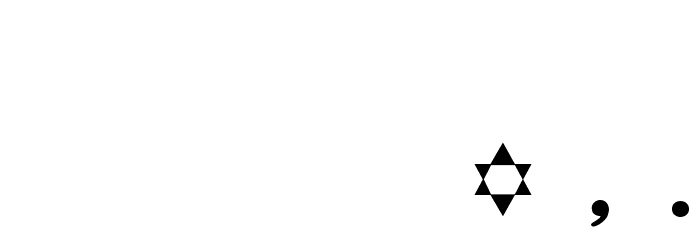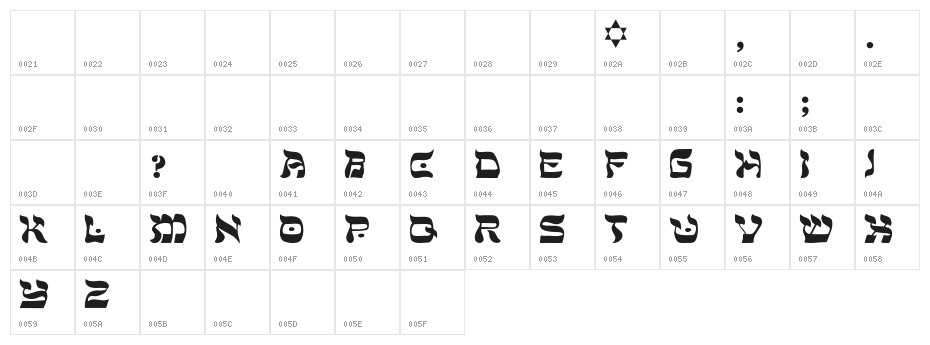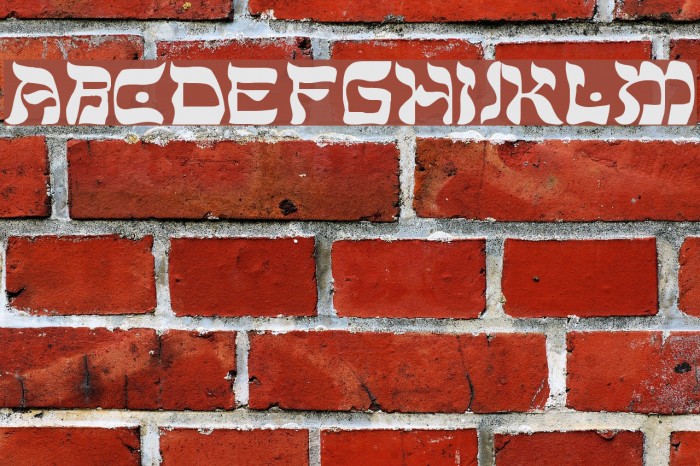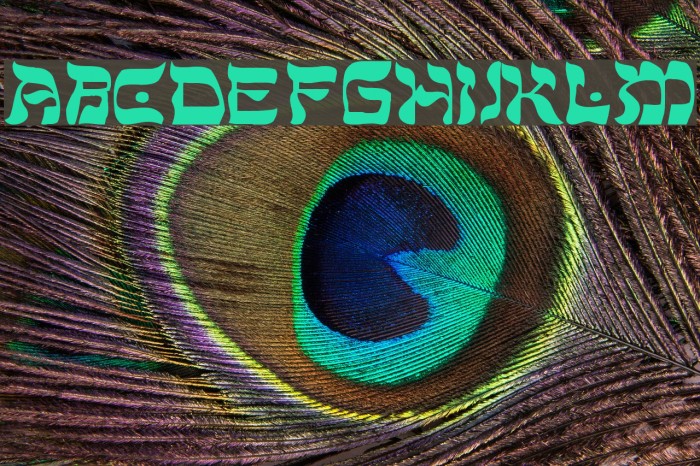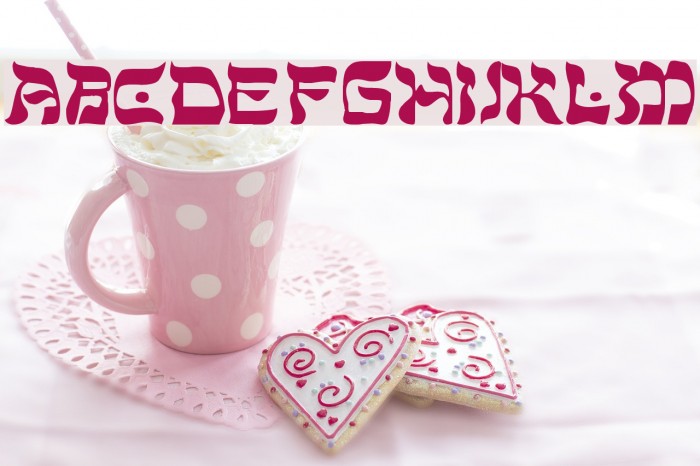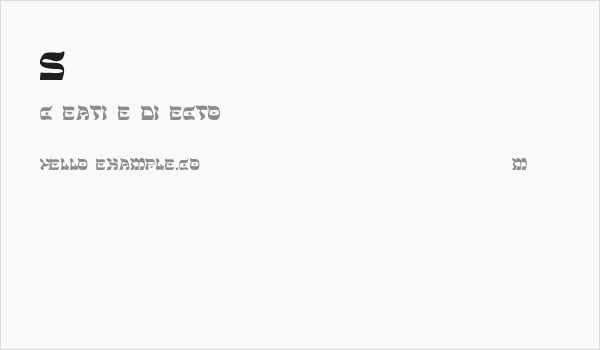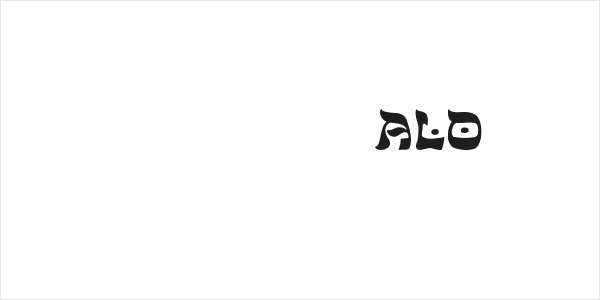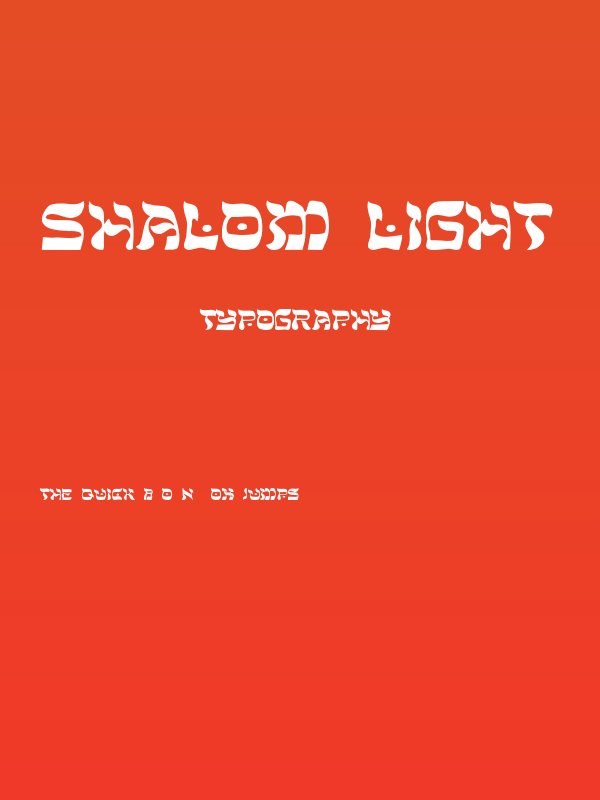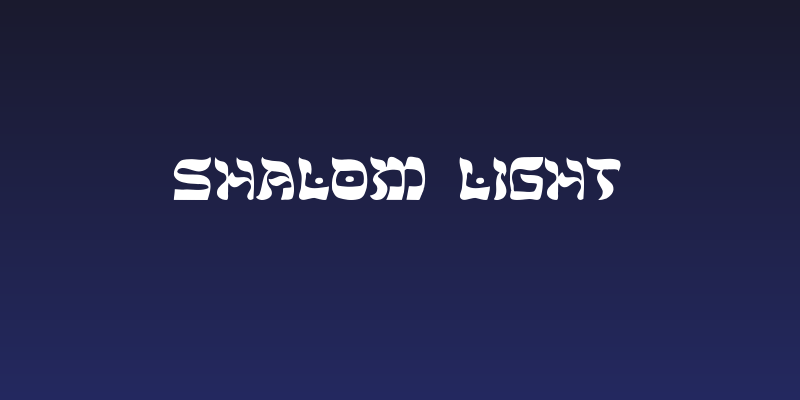
Shalom-Light Font
Shalom-Light Description
This font features a unique and artistic design with bold, abstract shapes that create a sense of movement and fluidity. The characters are highly stylized, with thick strokes and intricate details that give it a distinctive appearance. The uppercase letters are particularly striking, with their bold and dynamic forms. The overall look is both modern and decorative, making it suitable for creative and expressive projects. The font's design is reminiscent of calligraphic styles, yet it maintains a contemporary edge, making it versatile for various design needs.
| Use Case | Headlines, Logos, Artistic displays |
| Proposed Projects | Ideal for creative projects such as posters, album covers, branding, and artistic displays. |